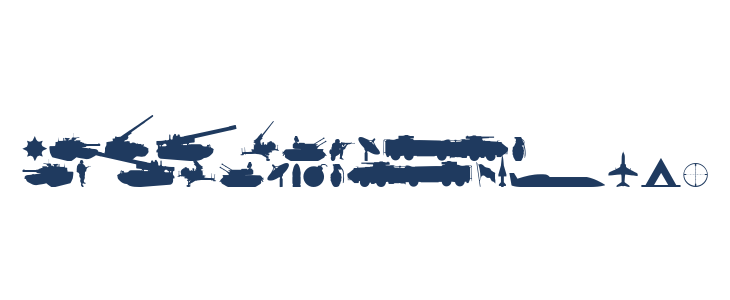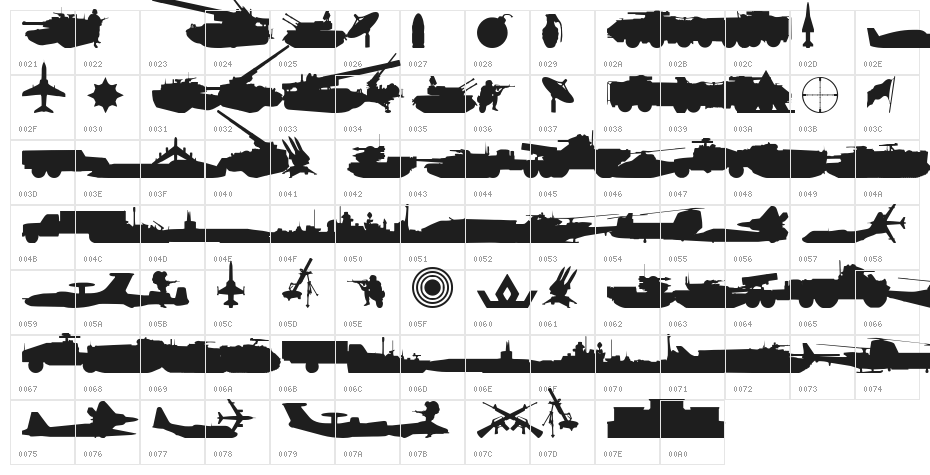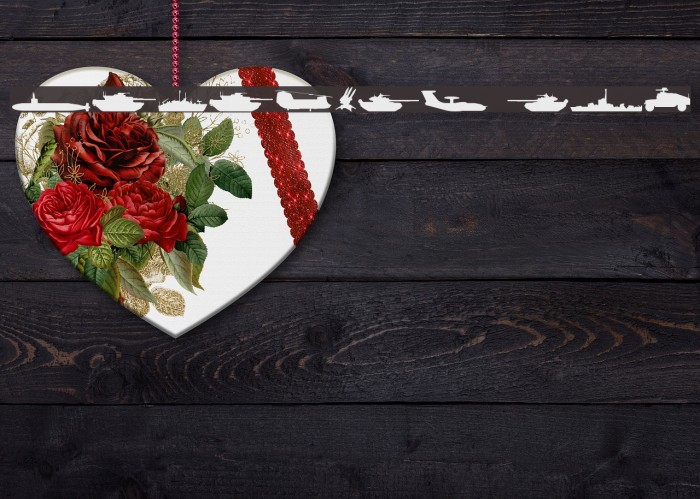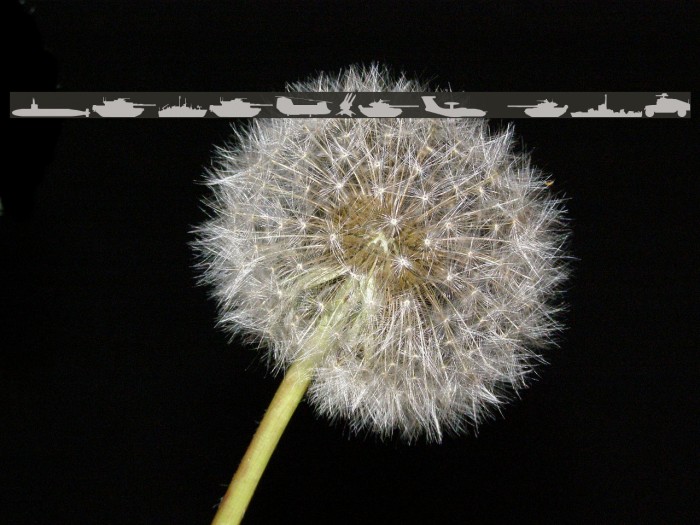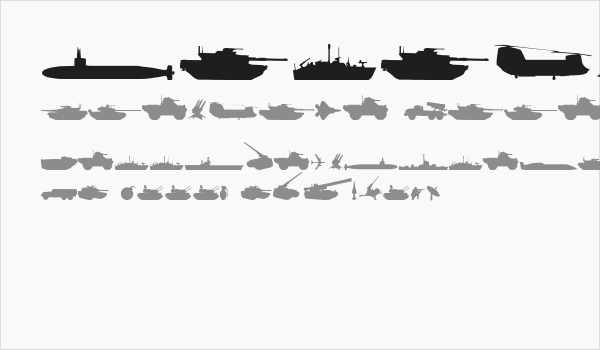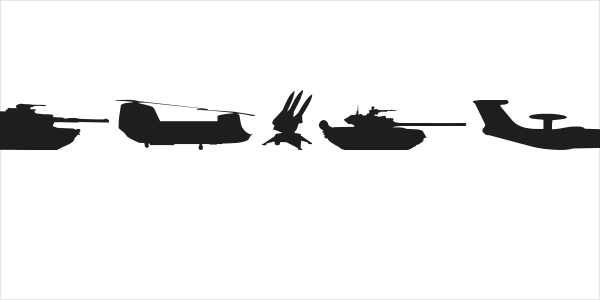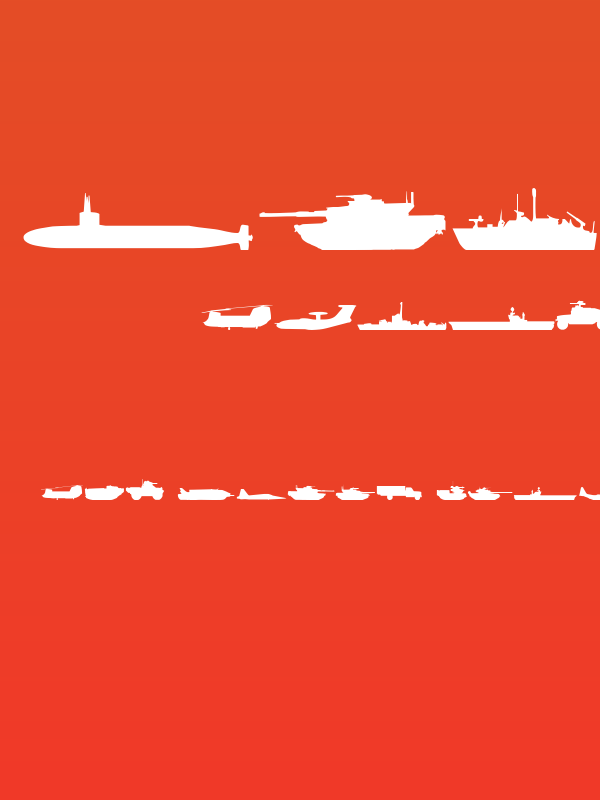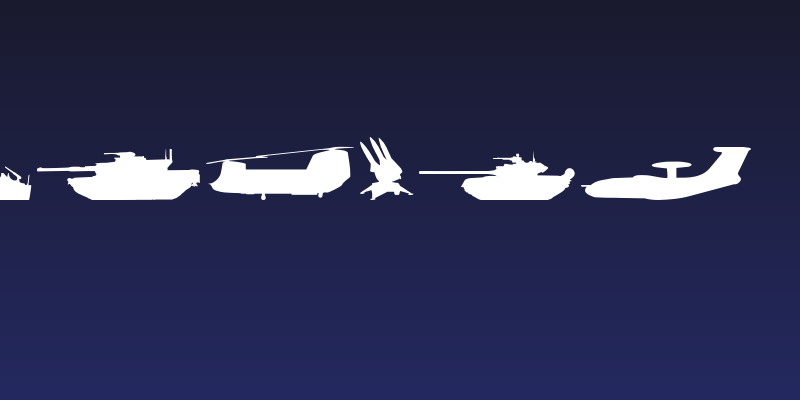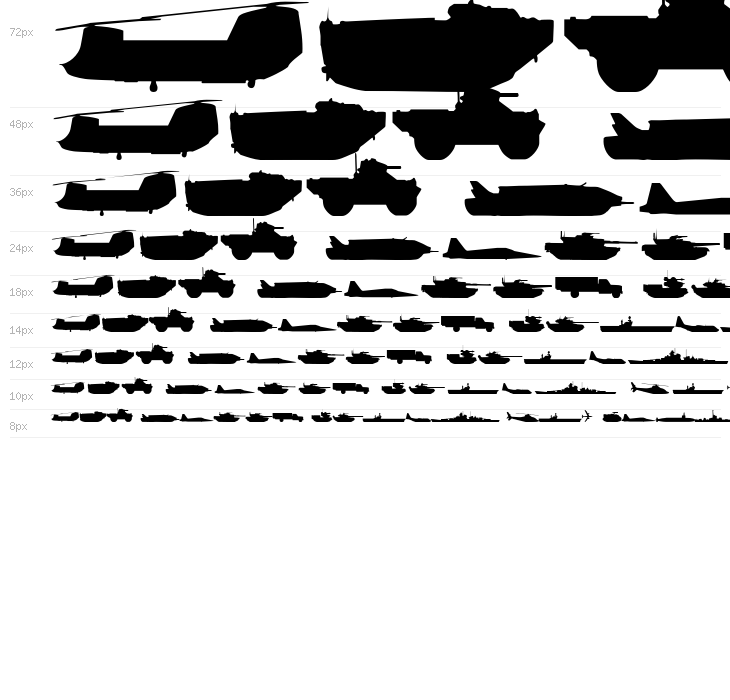
Military RPG Font
Military RPG Description
A decorative dingbat font featuring solid black silhouettes of various military vehicles, aircraft, ships, soldiers, and equipment. Each character is represented by a unique military-themed icon, including tanks, helicopters, jets, ships, trucks, artillery, and personnel.
| Overall Style | Decorative, Thematic |
| Use Case | Icons, Themed graphics, Decorative elements |
| Proposed Projects | Military games, educational materials, infographics, posters, themed party invitations, and iconography. |